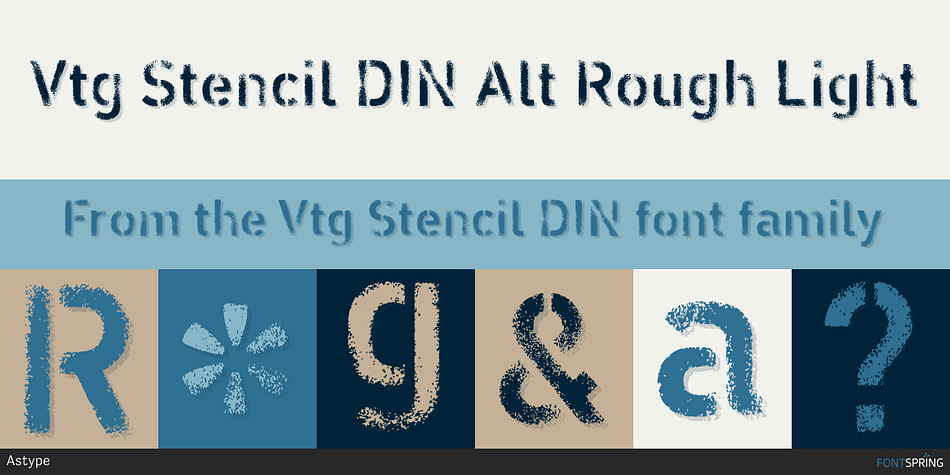
Vtg Stencil DIN Alt Rough Light
Designed by Andreas Seidel, Vtg Stencil DIN is a grunge and stencil font family. This typeface has fourteen styles and was published by Astype.
The Vtg Stencil series of fonts from astype are based on real world stencils.
The Vtg Stencil series of fonts from astype are based on real world stencils. The Vtg Stencil DIN fonts were developed to made the most common stencil type of Germany available in digital type. Of course there are several, slightly different stencil designs from different manufactures and times in circulation, but all share the typical design of DIN type.
Vtg Stencil DIN comes in many styles - Regular, Alt, Fabric, Halftone and Rough. The Alt style features older designs of letter “a” and figures “6” and “9”. Fabric, Halftone and Rough styles have an eroded, weathered look using up to four glyph variations of each letter. For an random effect an glyph rotator is programmed into the fonts opentypecode and applied by typing in opentype-savvy application.